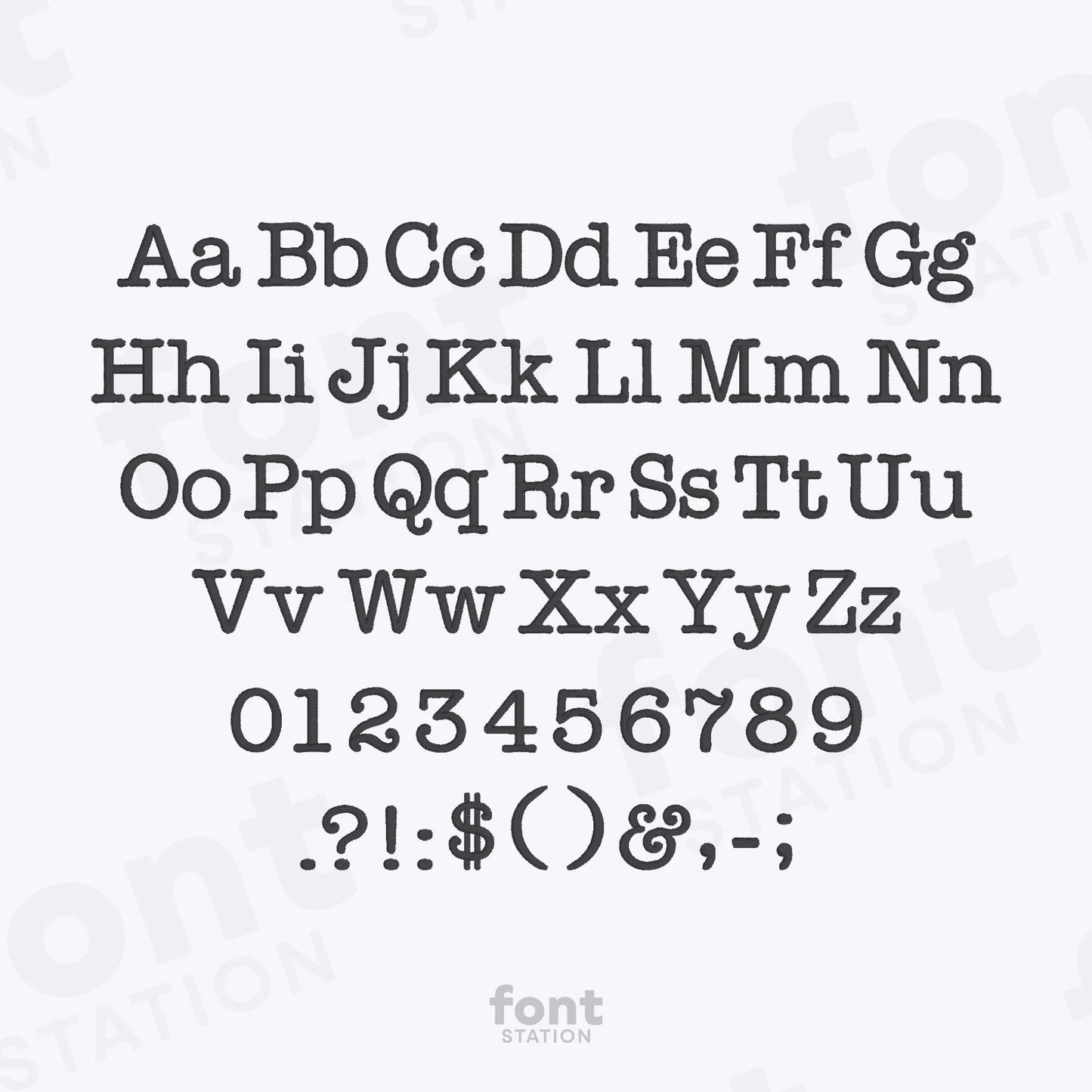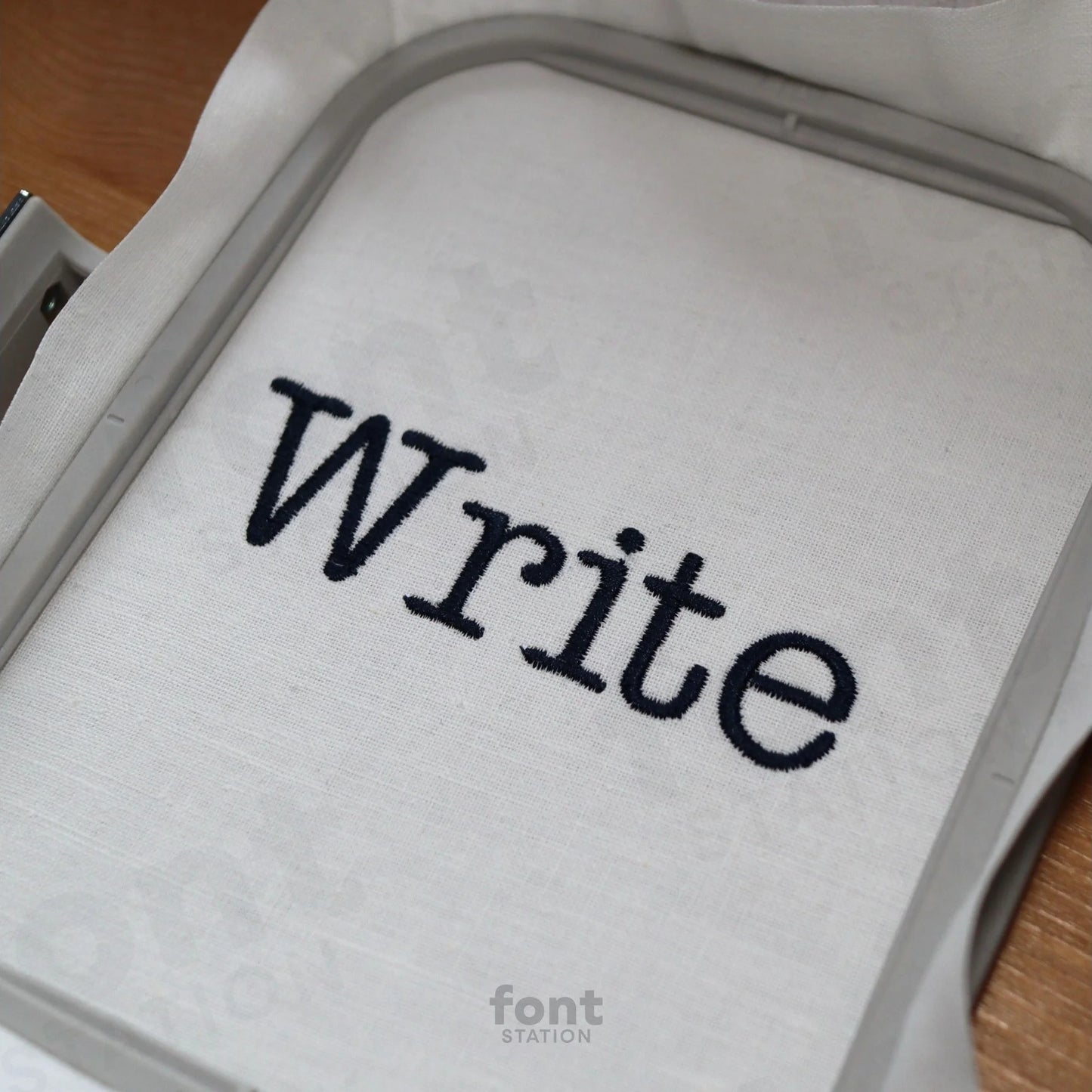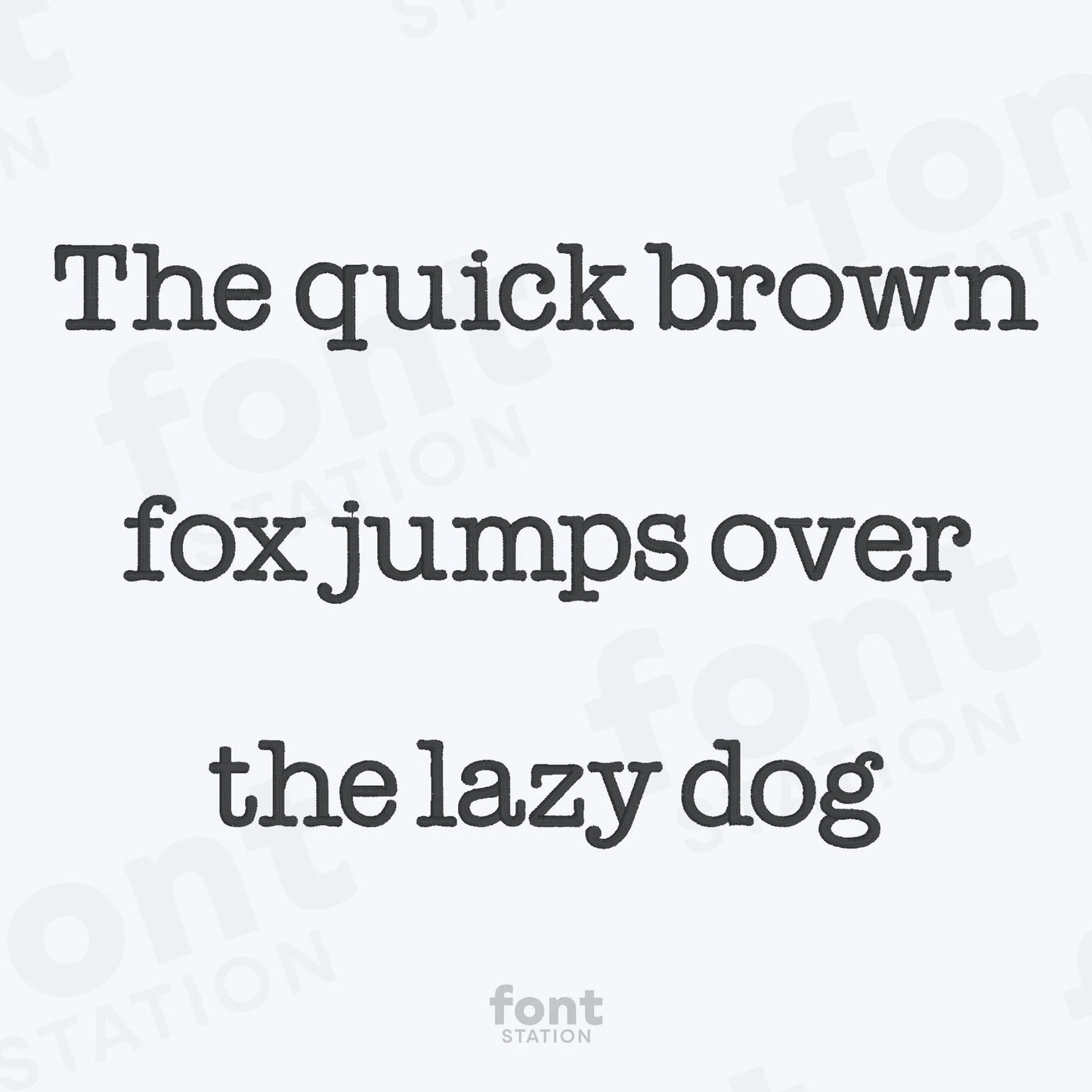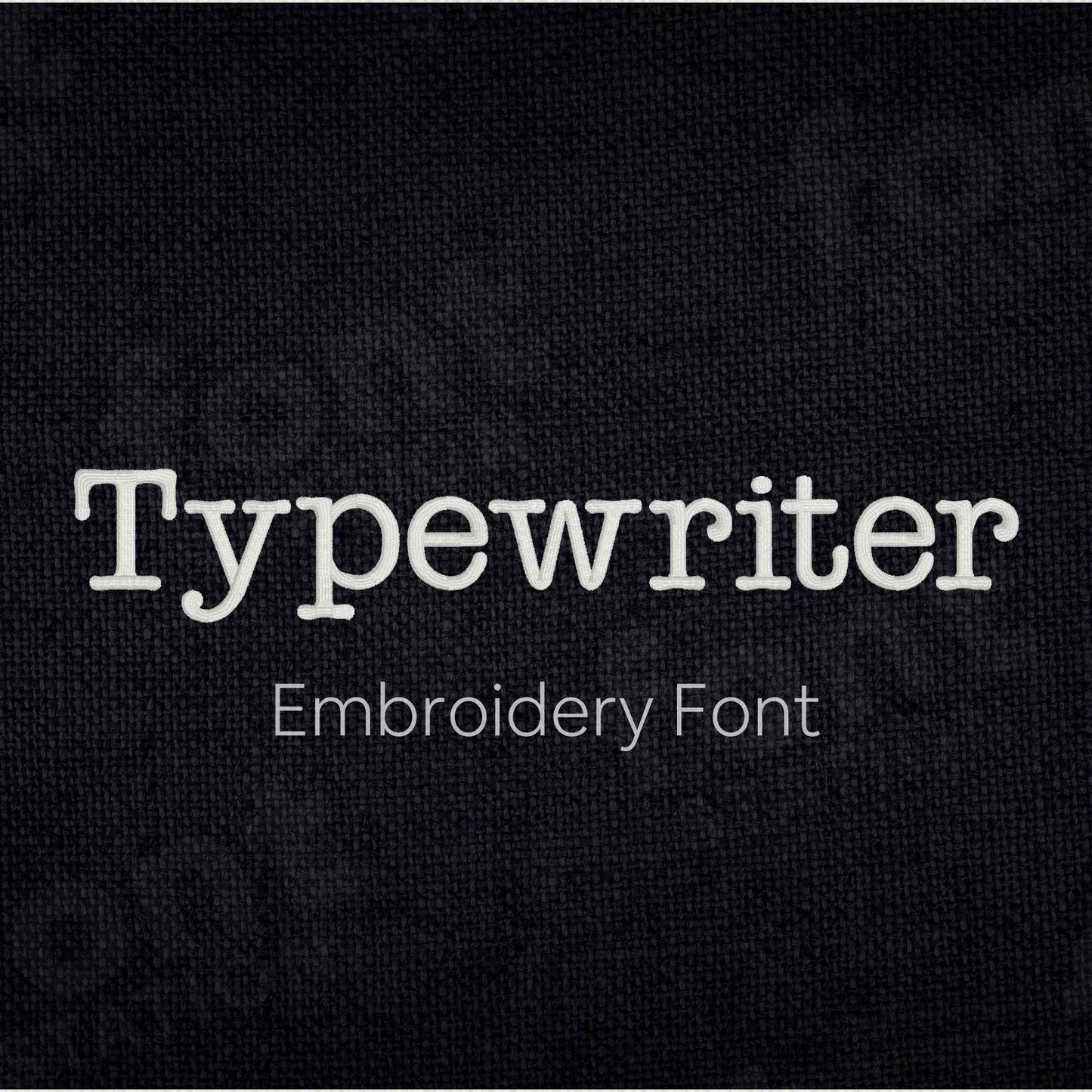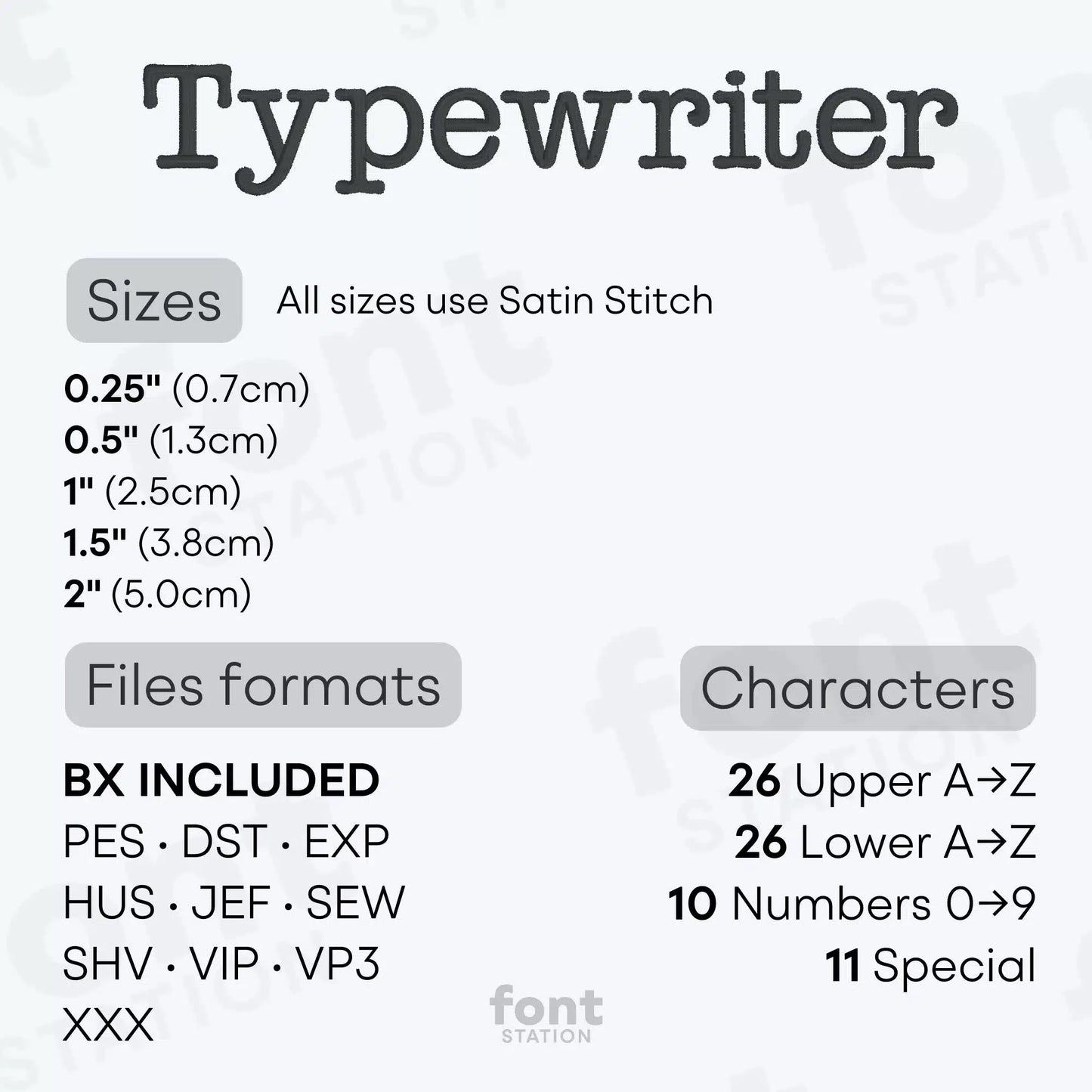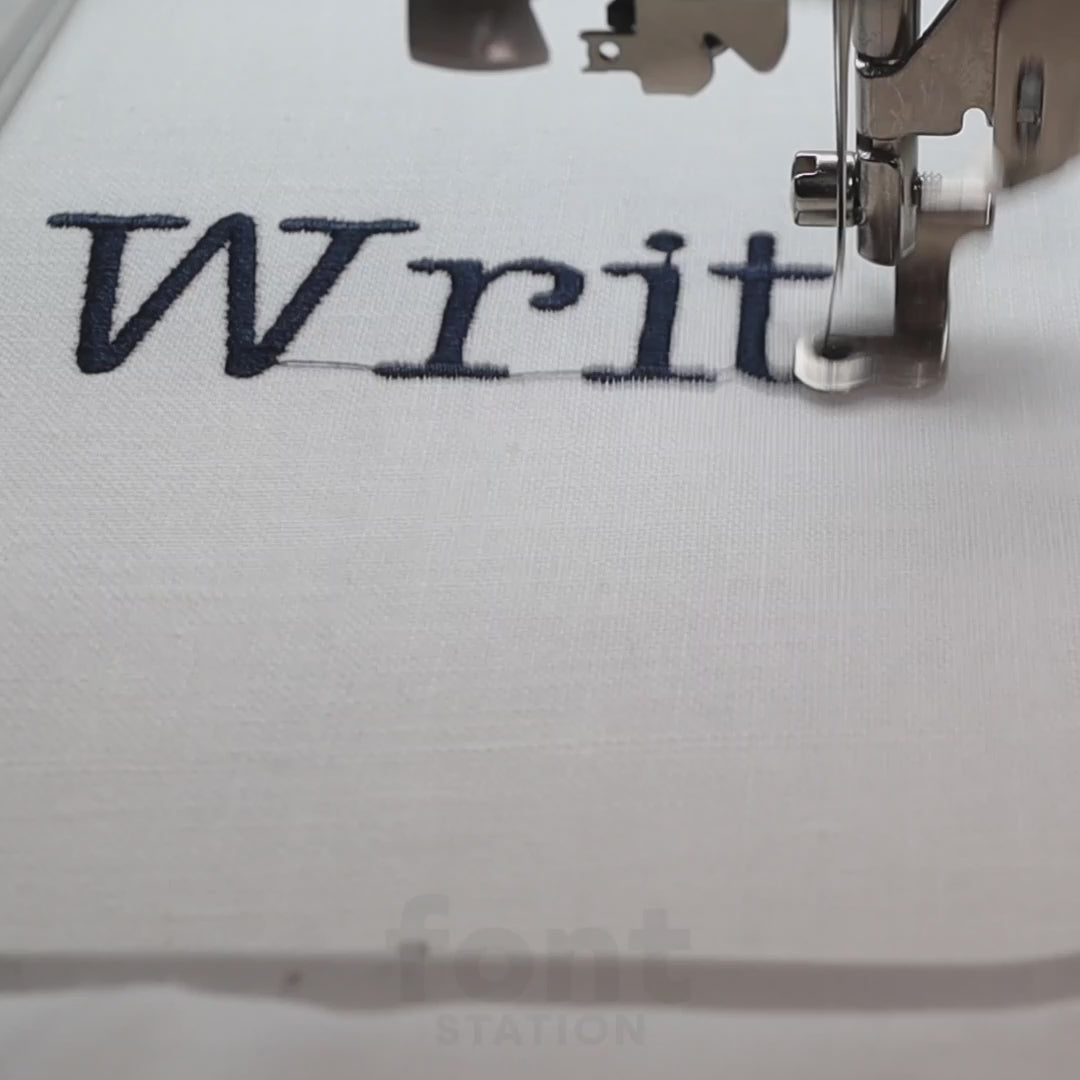
Typewriter Embroidery Font
Our Typewriter embroidery font adds vintage charm to any project and makes a great addition to your embroidery collection. These machine-ready letters are perfect for retro, literary, and nostalgic designs.
Characters: 26 uppercase, 26 lowercase, 10 numbers, and symbols & : , - $ . ! ( ) ? ;
Give your designs a vintage typewriter feel with our Typewriter embroidery font!
Add classic charm to your embroidery projects with our Typewriter embroidery font. Professionally digitized for clean, high-quality stitching on most fabrics, this vintage-style alphabet is perfect for nostalgic, literary, or retro-inspired designs. It's a customer favorite, and we can't wait to see what you create with it!
- Professional Quality:Β Each character has been expertly digitized to ensure clean, crisp stitching and excellent embroidery results.
- Versatility:Β Our font is suitable for a wide range of embroidery projects, from apparel and accessories to home decor and gifts.